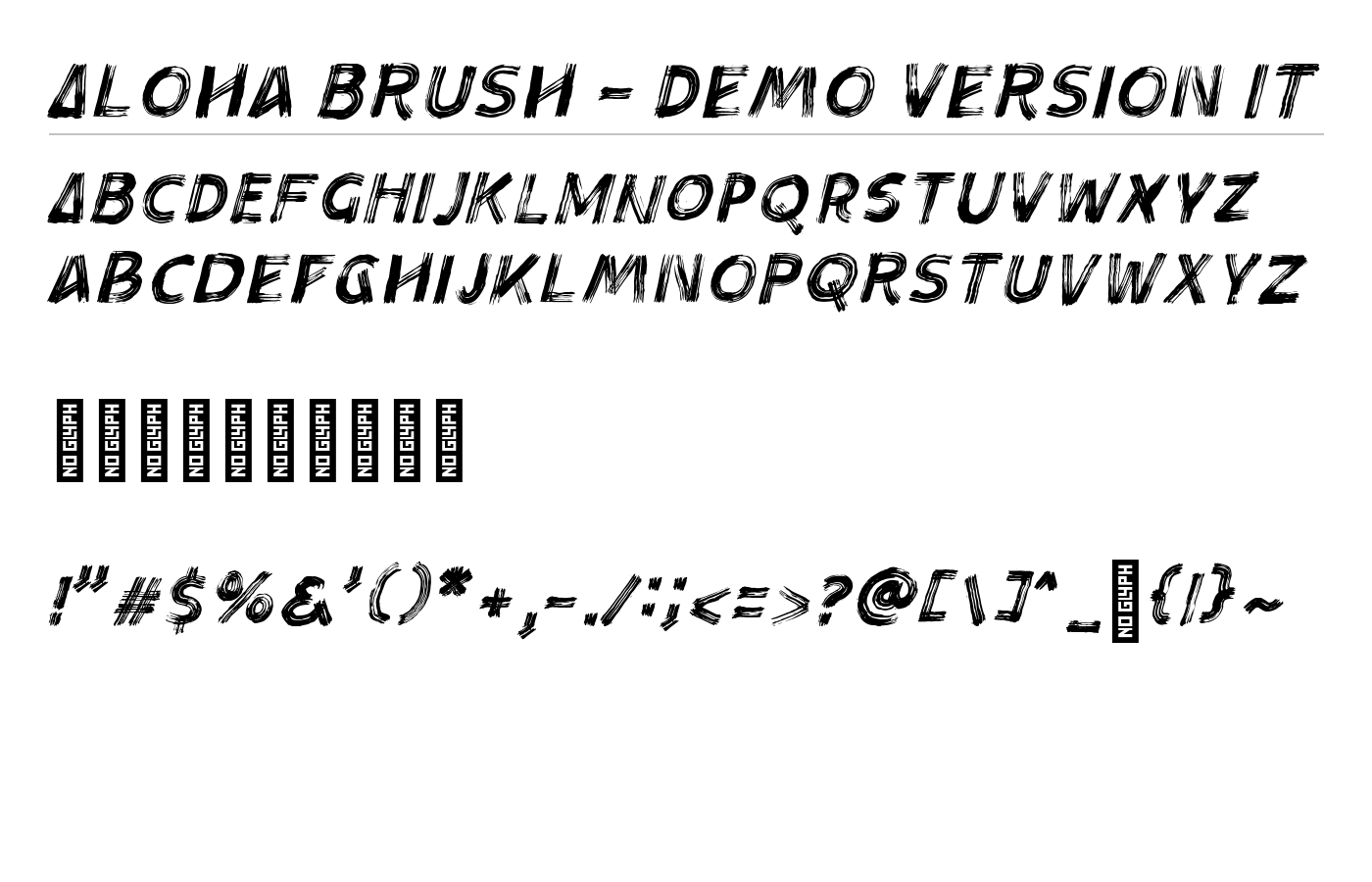
Aloha Brush is a lively, brush-style sans serif font with a hand-painted, textured appearance that brings energy and personality to any design. Its irregular strokes and casual feel make it perfect for playful, creative projects such as posters, logos, and branding that seek a youthful, dynamic vibe. This font works best for headlines and display use, where its bold and expressive character can truly stand out.
Aloha Brush - Demo Version Font
About Aloha Brush - Demo Version Font
| Font family | Aloha Brush - Demo Version Font |
| Designer | Sigit Dwipa Raharjo |